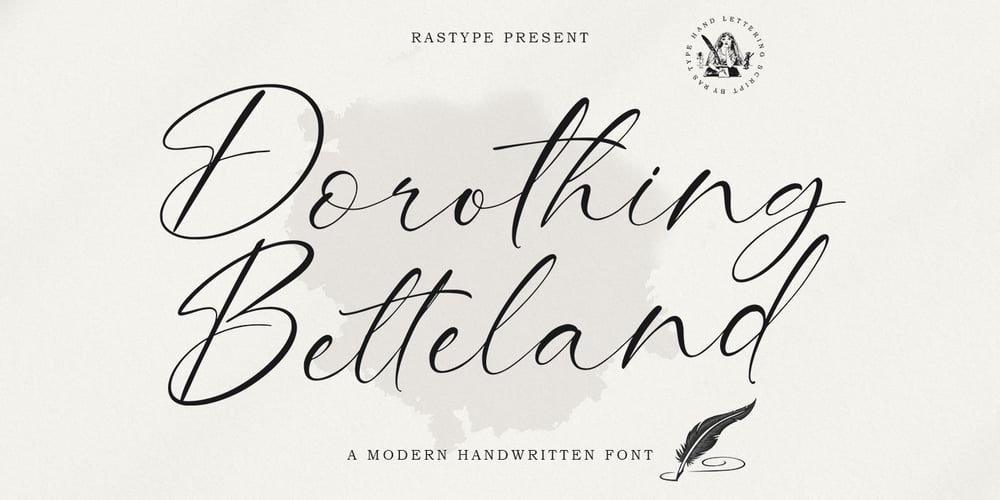
Dorothing Betteland Font Family was designed by Muhammad Taufik and published by Rastype Studio. Dorothing Betteland contains 1 styles and family package options. Dorothing Betteland is a beautiful and cool handwritten signature font. Looks amazing on branding, wedding invitations, quotes, t-shirts, letterhead, signage, business cards and other designs.This font is PUA encoded which means you can access all glyphs and swashes with ease!The font includes OpenType features with alternative styles, ligatures, and multiple language support.Happy Designing!